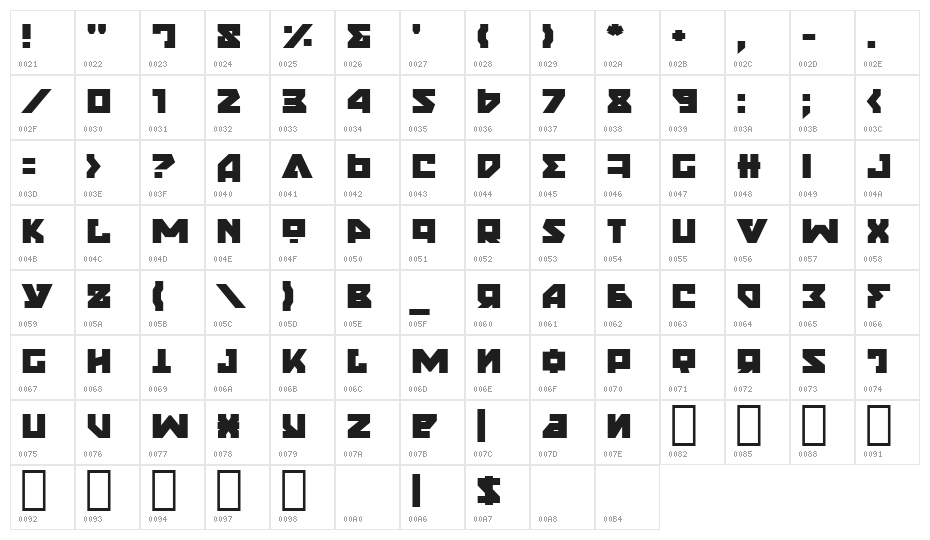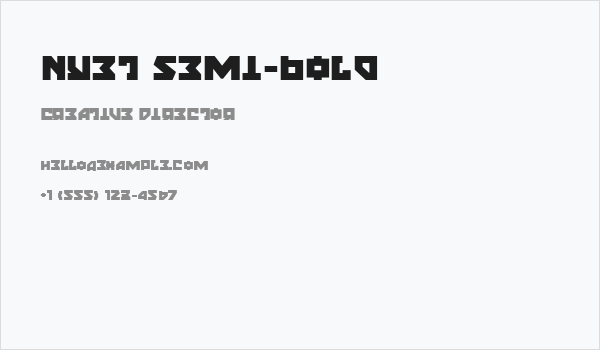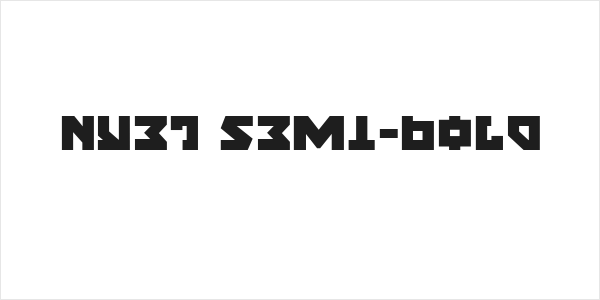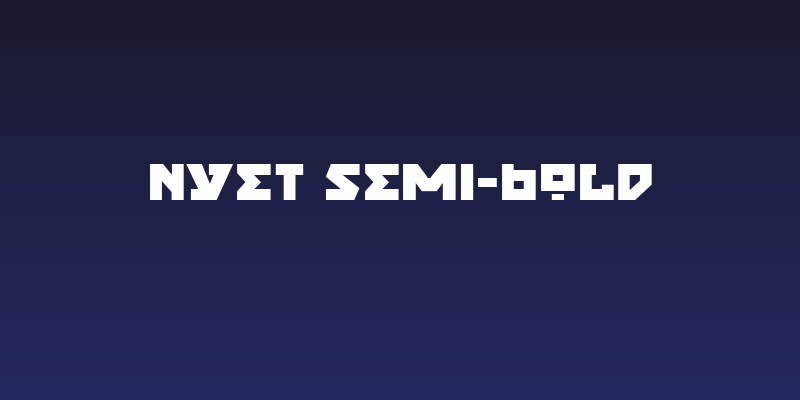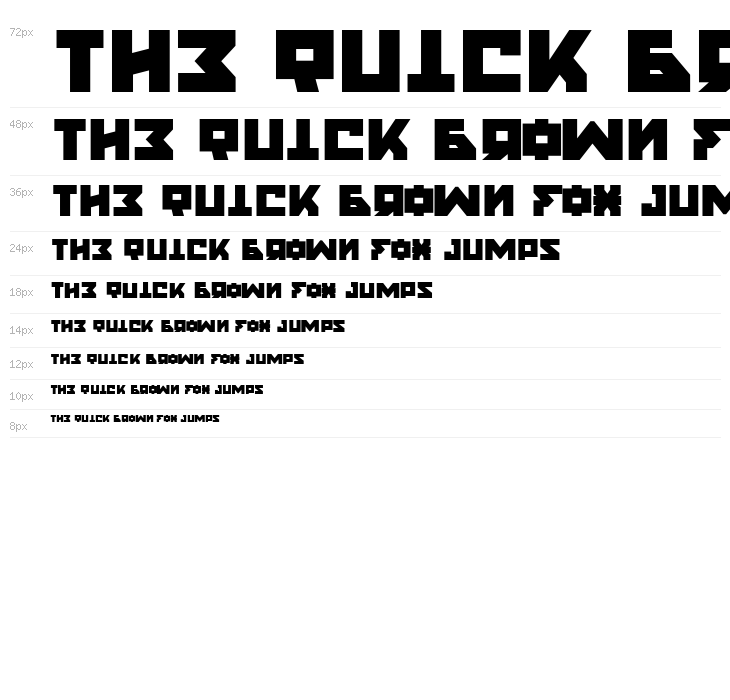
Nyet Semi-Bold Font
Nyet Semi-Bold Description
This font features a bold and geometric design, characterized by sharp angles and a blocky appearance. The uppercase and lowercase letters maintain a consistent style, with a strong emphasis on symmetry and uniformity. The numerals and special characters follow the same design principles, ensuring a cohesive look across all elements. The font's boldness and distinct shapes make it highly visible and attention-grabbing, suitable for impactful designs. Its modern and edgy aesthetic is ideal for projects that require a strong visual presence.
| Proposed Projects | Ideal for posters, logos, video game graphics, and branding materials that require a strong, modern look. |